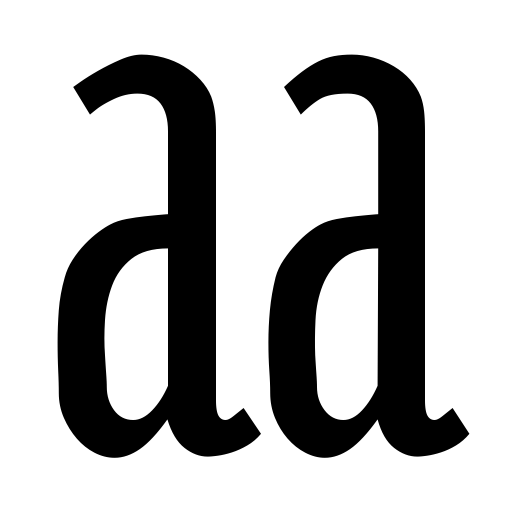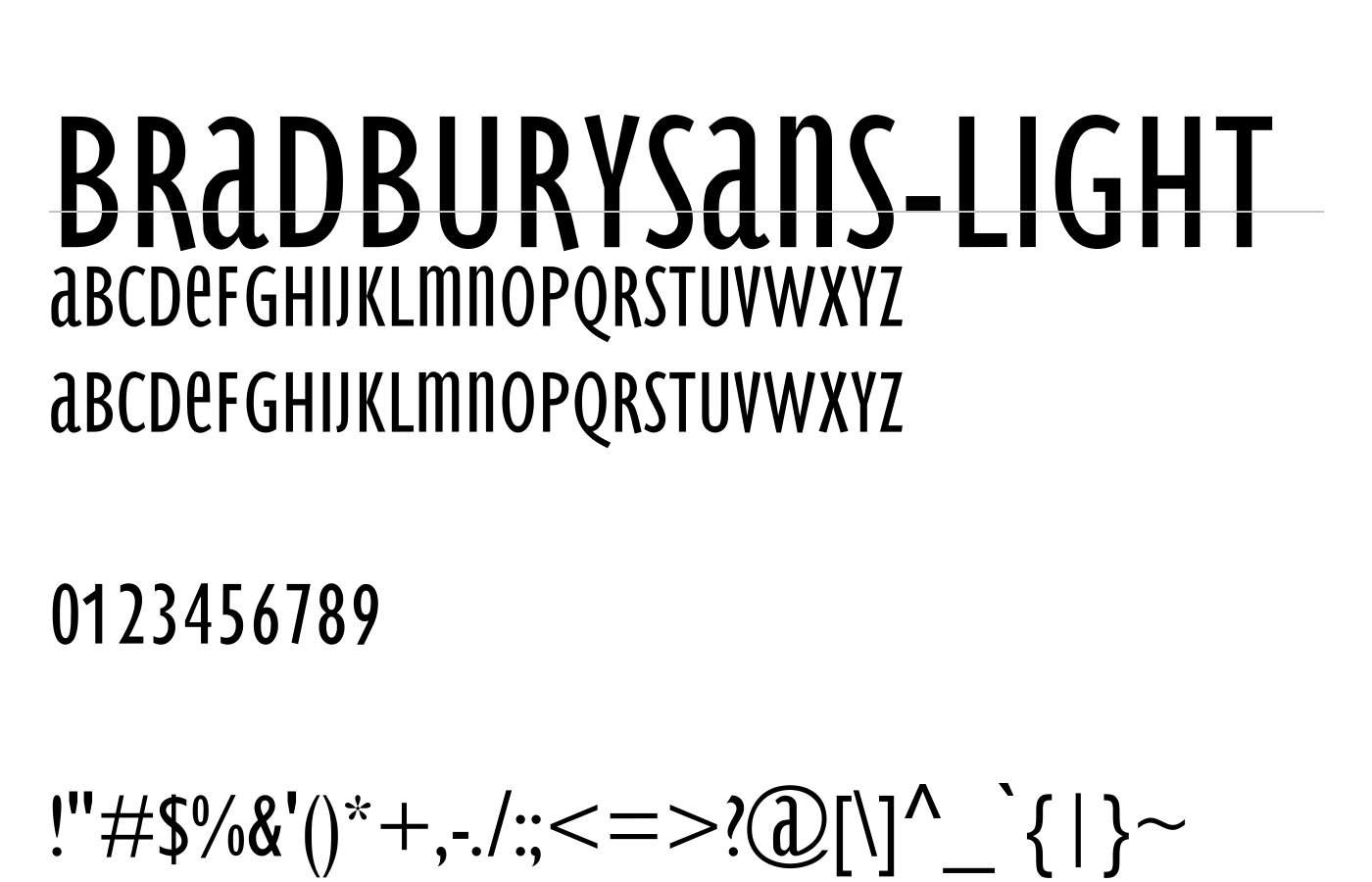
BradburySans-Light is a sleek, condensed sans serif font with a light weight and tall x-height, giving it a modern and elegant look. Its clean lines and subtle curvature in certain letters add a unique touch while maintaining excellent readability, making it ideal for stylish headlines, branding, and editorial designs that seek a refined yet contemporary feel. This font works well in contexts where space is limited but impact is important, offering a sophisticated personality without sacrificing clarity.
BradburySans-Light Font